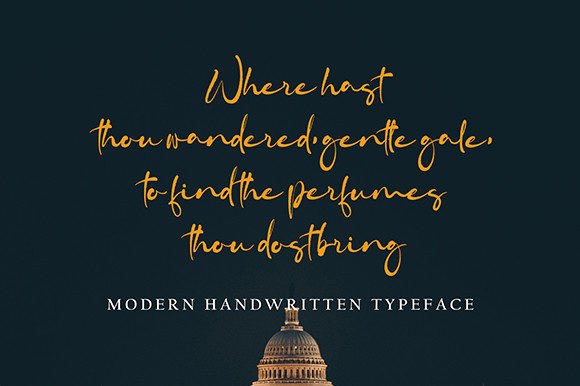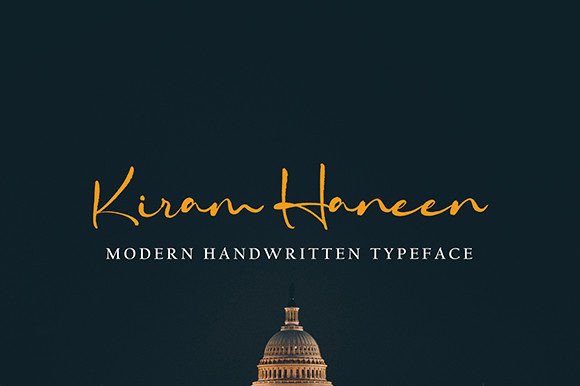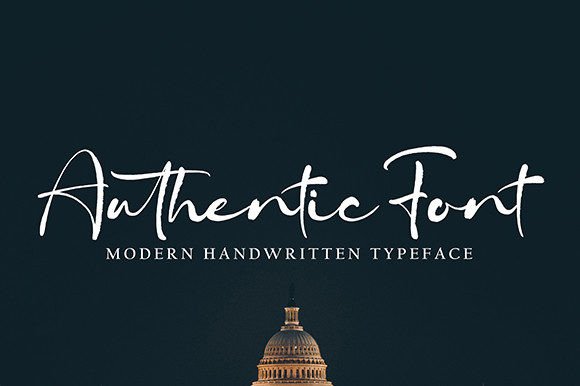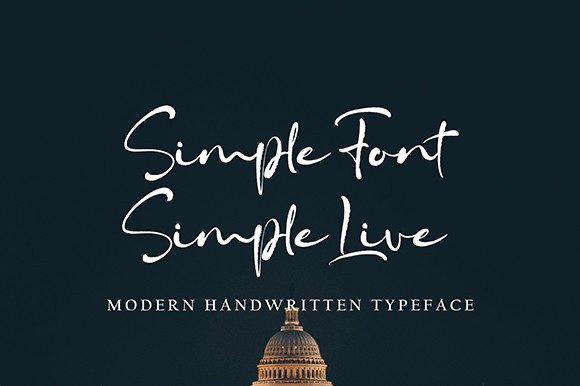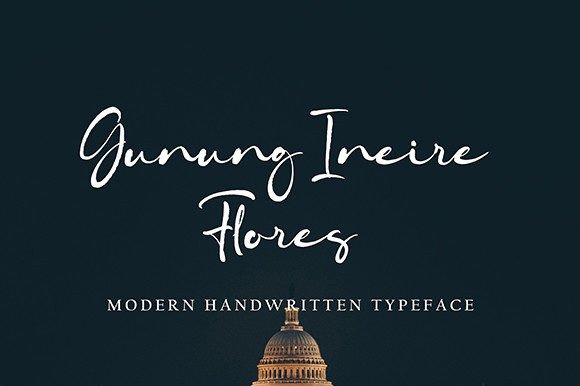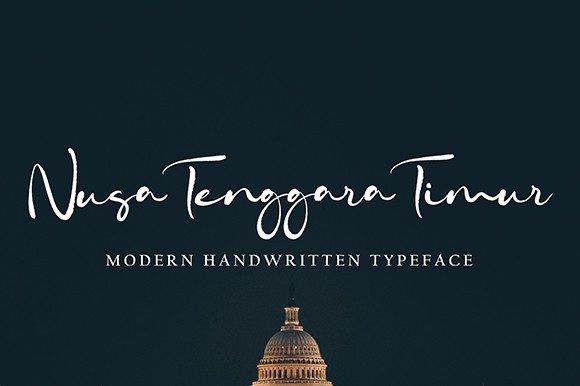
Introduction to Selamat Font
Have you ever stumbled upon a beautiful handwritten note or a quirky greeting card that made your day? For designers, those moments are a constant source of inspiration. The quest for the perfect handwritten script is a never-ending one, and that’s where the Selamat Font comes in – a modern, stylish, and versatile font that can elevate any design project.
As a valuable design resource, the Selamat Font offers a unique blend of natural charm and high-quality aesthetic, making it perfect for any creative project that requires a customized touch. From wedding invitations to business cards, and from quotes to logos, this font is sure to leave a lasting impression. Whether you’re a seasoned designer or a newcomer to the world of design, the Selamat Font is a must-have in your arsenal of design tools.
Key Features of Selamat Font
- Unique, modern design with a transparent background, making it ideal for creative projects.
- Comes in two font styles: Regular and Bold, each with its own distinct characteristics.
- Perfect for use in digital designs, such as logos, icons, and graphics, with a recommended resolution of 300 DPI.
- Supports a wide range of languages, including English, making it a versatile design resource.
Honest Review: Selamat Font
As a designer, I’m always on the lookout for high-quality design resources to elevate my creative projects. Recently, I stumbled upon the Selamat Font, and I’m excited to share my honest review.
- Unique aesthetic: Selamat Font offers a distinctive and modern design that sets it apart from other fonts.
- Transparent background: This feature allows for seamless integration with various design elements, giving you more flexibility.
The Selamat Font is a great addition to any designer’s toolkit, offering a fresh and modern look that’s sure to enhance your creative projects.
- Limited language support: Selamat Font may not be suitable for projects requiring support for multiple languages.
- Not ideal for small text: The font may not be the best choice for small text sizes, as it can become difficult to read.
Overall, I’m impressed with the Selamat Font, and I would definitely recommend it to designers looking for a unique and high-quality design resource.
Tips for Getting the Most Out of Selamat Font
Use a transparent background to make your design stand out. Experiment with different font sizes and colors to create a unique look. Also, consider combining Selamat Font with other design resources to create a cohesive and professional design.
Selamat Font is a versatile design resource that can be used for a variety of creative projects, including:
- Brochures and reports
Lato is a clean and modern font that’s perfect for designers working on creative projects that require a sleek and professional look. It’s available for free download and can be used with a transparent background, making it easy to integrate into various design elements.
Does the Selamat Font have a transparent background?
No, the Selamat Font does not have a transparent background. It is a solid font with a high-quality design, making it perfect for use in various design projects, including those that require a solid background. However, you can use the font in conjunction with a transparent background image or design element to create a unique and creative visual effect.